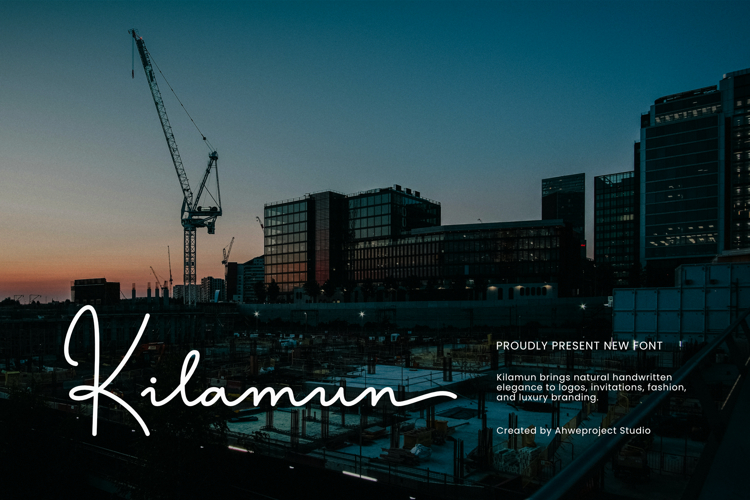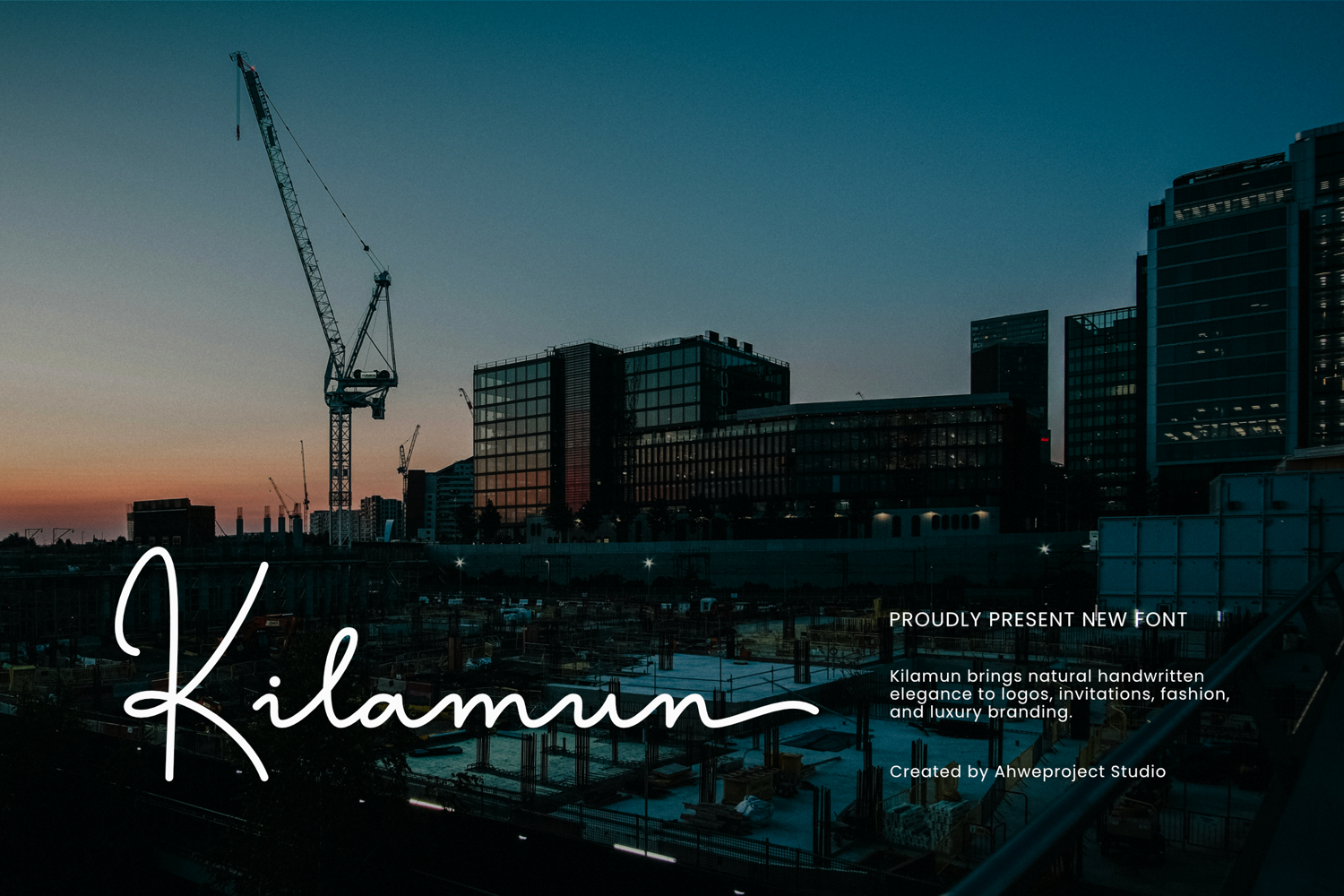
Kilamun is a graceful handwritten script font crafted to bring warmth, authenticity, and premium elegance to every design. Featuring smooth flowing strokes and natural signature-style lettering, this font is perfect for creating eye-catching logos, luxury branding, wedding invitations, fashion labels, product packaging, social media graphics, business cards, photography watermarks, and stylish website headers.
Its clean handwritten appearance strikes the perfect balance between modern sophistication, making Kilamun an excellent choice for designers, entrepreneurs, and content creators who want their brand to feel unique, refined, and memorable. Whether you’re designing for a boutique, beauty brand, café, jewelry collection, cosmetics, or high-end lifestyle business, Kilamun adds a timeless handcrafted touch that instantly elevates your work.
Designed with versatility in mind, Kilamun pairs beautifully with serif, sans serif, or minimalist fonts, making it ideal for logos, editorial layouts, magazine covers, packaging, branding presentations, and elegant marketing materials. If you’re looking for a handwritten script that feels effortless, stylish, and professional, Kilamun is the perfect addition to your font collection.